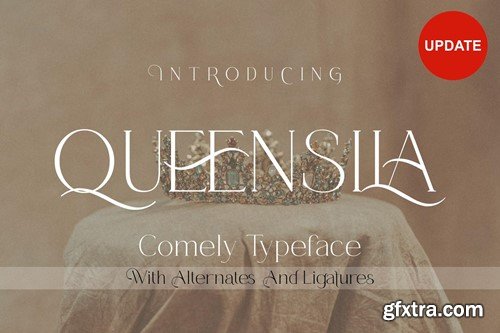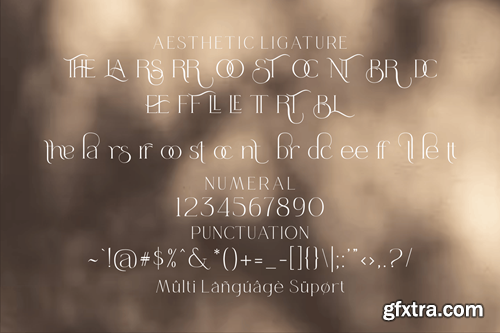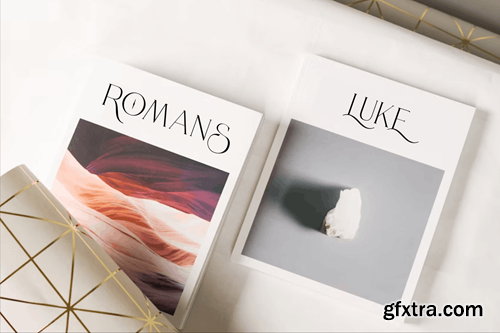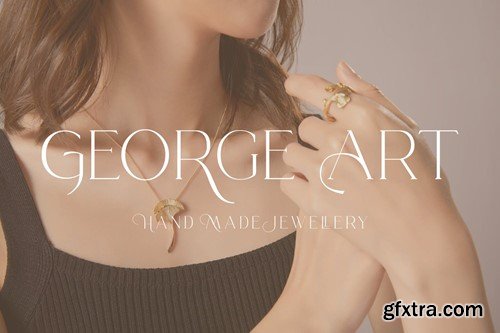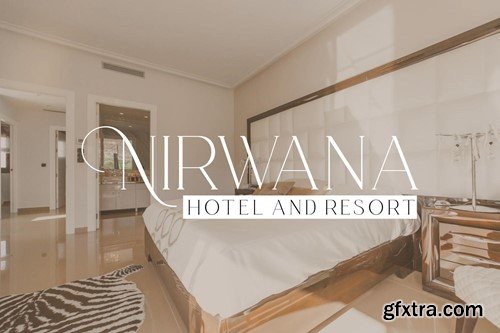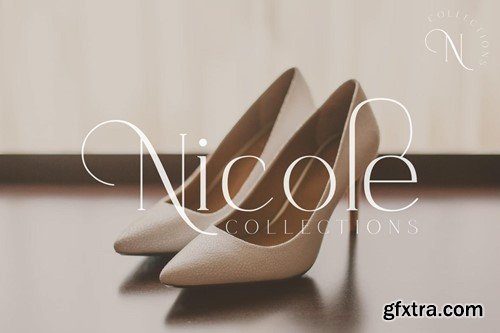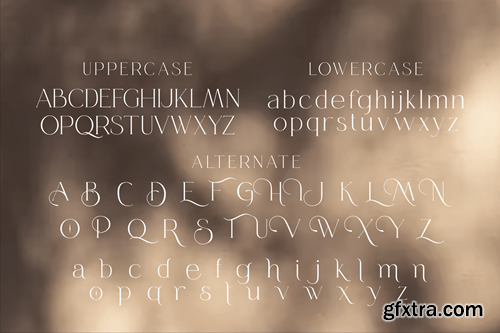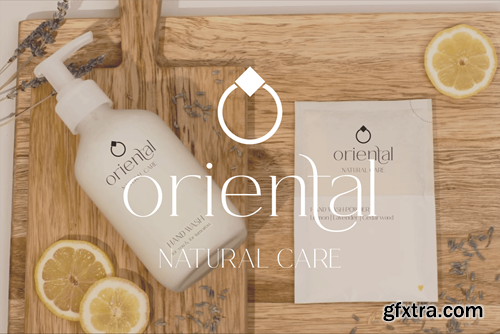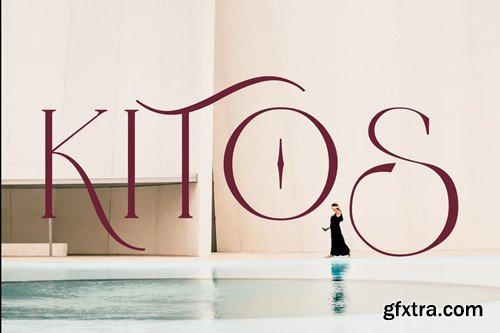
Queensila - 绚丽排版衬线字体 53BRDJA
Queensila is a comely styled serif font with beautiful ligatures, lots of custom alternative glyphs, and multilingual support. This is a very versatile font that works well in large and small sizes. Queensila is a perfect fit for your project and lets you create beautiful designs, headlines, posters, logos, badges, t-shirts and more. It's also best used for posts, logos, posters, certificates, labels and more. Features: Supports Multiple Languages __________________________________________________________________________________ HOW TO ACCESS THE ALTERNATIVE CHARACTERS Open the glyph panel: In Adobe Photoshop go to Window - glyphs In Adobe Illustrator, open Type - glyphs Follow my shop for upcoming updates thank you